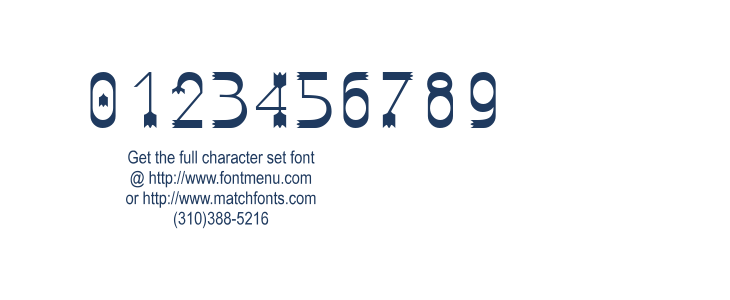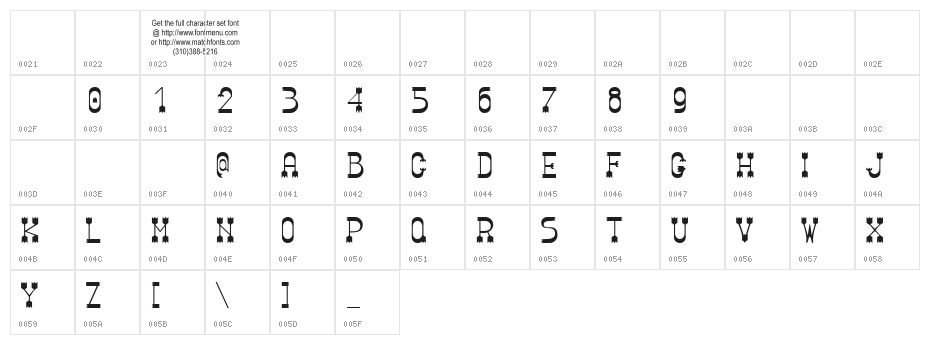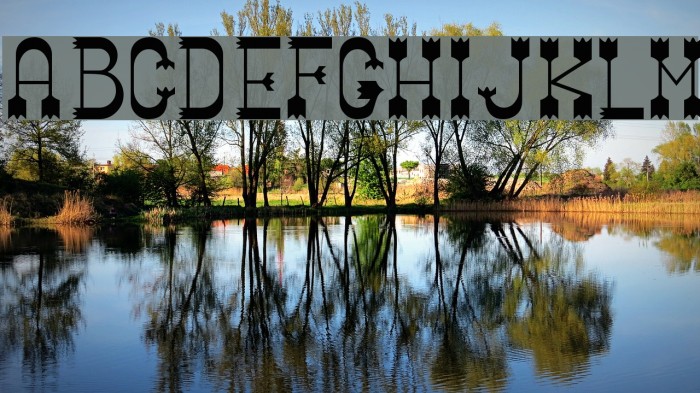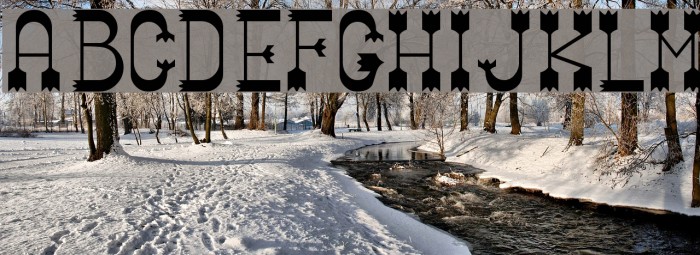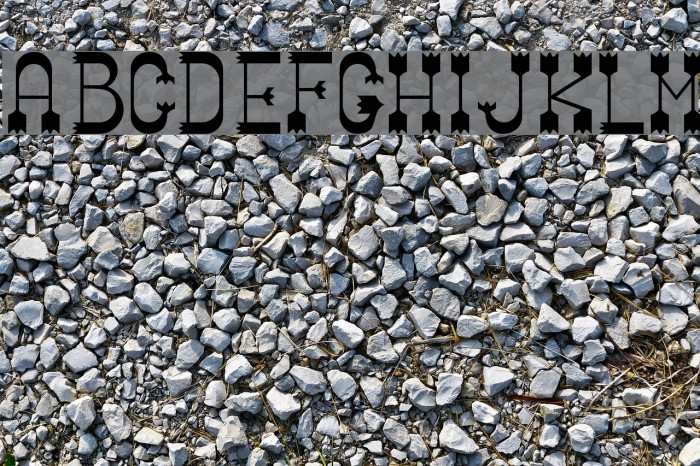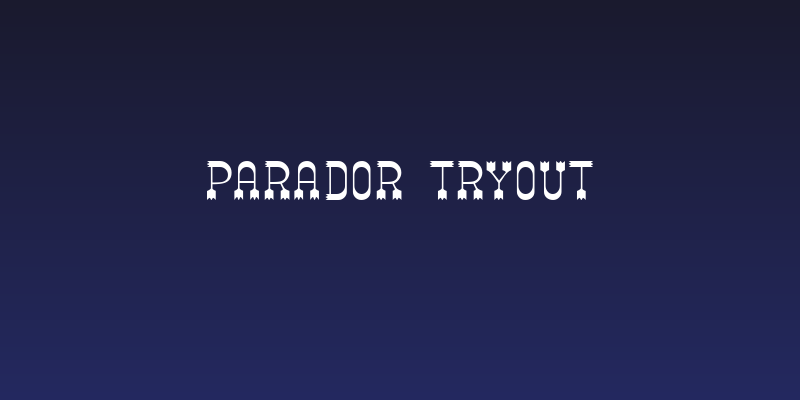
Parador Tryout Font
Parador Tryout Description
This font features a unique and bold design with decorative elements that resemble arrowheads or geometric shapes at the ends of each character. The uppercase and lowercase letters maintain a consistent style, with sharp angles and a strong presence. The numerals follow the same design principles, making them stand out with their distinct and artistic flair. The special characters are equally stylized, adding to the font's cohesive and striking appearance. This font is ideal for projects that require a bold and creative touch.